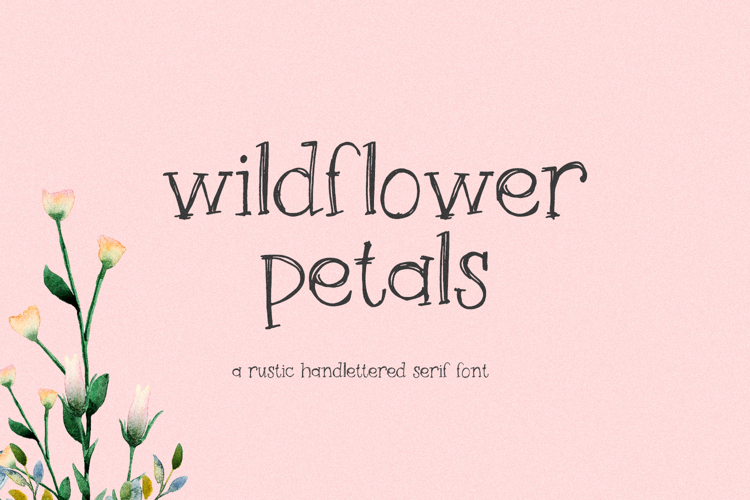
Wildflower Petals Serif Font
Wildflower Petals is a whimsical, sketch-style font. Wildflower Petals is handwritten, and rustic in nature. This serif font has a cute and child-like quality, which would make it a great fit for a teacher’s font collection, children’s books, or classroom decor. Wildflower Petals is also perfect for logos & branding, greeting cards, painted banners, digital planners, note-taking apps, Canva, & more. Due to the rustic & sketchy quality of this font, Wildflower Petals may not be a good fit for vinyl cutting projects.